25 Best Lettering Fonts for Creative Professionals in 2026
Picking the right typography is a vital part of the design process, so we have handpicked 25 standout lettering fonts to help you stand out in 2026. Whether you need a flowing script for a wedding invitation or a bold, hand-drawn look for a logo, these lettering fonts provide the personality and charm that standard typefaces simply cannot match. Incorporating these digital calligraphy styles into your work adds a human touch that helps your brand feel more authentic and approachable.
1. Cyprus Sunrise Duo Font
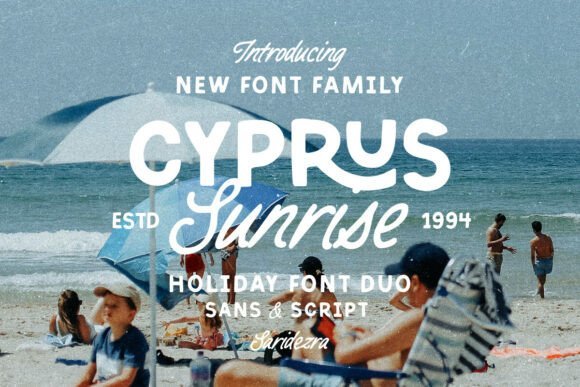
Cyprus Sunrise Duo Font is a masterful combination of organic textures and clean lines, designed to bridge the gap between casual handwritten styles and professional branding. This collection stands out among modern lettering fonts by offering a bold, character-rich sans serif alongside a delicate monoline script. The inclusion of unique ligatures ensures that every word feels custom-made, providing a handcrafted aesthetic that is difficult to achieve with standard digital typefaces.
This duo is exceptionally versatile, making it a go-to choice for designers working on outdoor-themed projects, artisanal logos, or elegant wedding invitations. Whether you are creating a cohesive visual identity for a boutique coffee shop or crafting inspirational social media quotes, the Cyprus Sunrise Duo Font provides the tactile, human touch that defines high-quality lettering fonts today. It pairs beautifully with earthy color palettes and minimalist layouts.
2. Tattoo Lettering Font
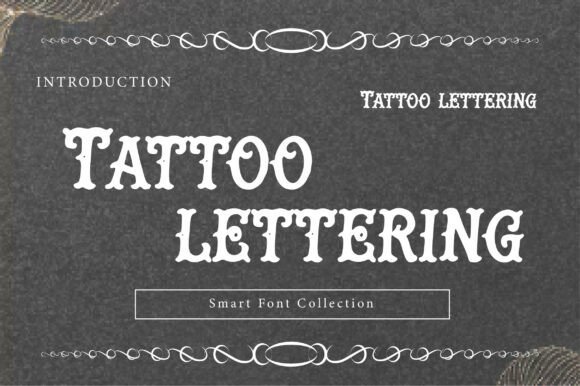
Tattoo Lettering Font captures the raw energy and intricate artistry of West Coast ink culture, transforming the elegance of Chicano-style scripts into a powerful digital tool. As a standout choice for those seeking authentic lettering fonts, this typeface features dramatic, high-contrast flourishes and ornate loops that replicate the fluid movement of a professional artist’s needle. It brings a sense of artisanal craftsmanship and cultural heritage to any design, moving far beyond the limitations of standard decorative scripts.
Ideal for industries that demand a gritty yet luxurious edge, this font is a perfect fit for premium liquor packaging, custom streetwear brands, and professional barbershop identities. By integrating these types of lettering fonts into your workflow, you can create a bold visual statement that resonates with themes of street-level authenticity and high-end craftsmanship. Its rhythmic flow makes it particularly effective for large-scale headers and focal-point branding.
3. Lucky Dream Font
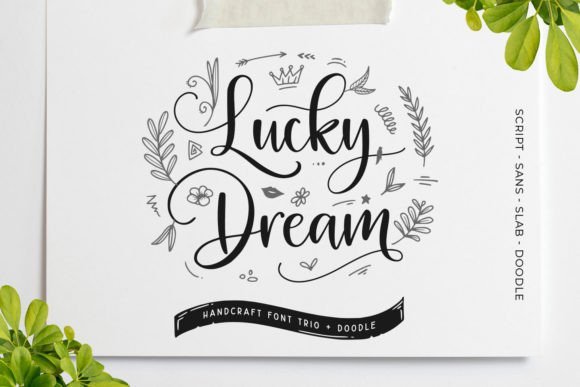
Lucky Dream Font is a comprehensive lettering font trio that brings a whimsical and playful energy to the creative process. By combining three distinct styles with a collection of charming doodles, this set allows designers to build complex, layered compositions without needing to hunt for matching assets. It is a prime example of how modern lettering fonts can simplify the design workflow while maintaining a handcrafted, personal feel that appeals to a wide audience.
This font trio is a dream for DIY enthusiasts and small business owners alike, excelling in projects ranging from custom t-shirts and tote bags to personalized mugs and social media banners. The playful nature of the Lucky Dream set makes it particularly effective for children’s products, celebratory cards, and any project where a sense of joy and approachability is key. For those looking for versatile lettering fonts that work across various craft mediums, this pack is an essential addition to any digital toolkit.
4. Blacknight Font
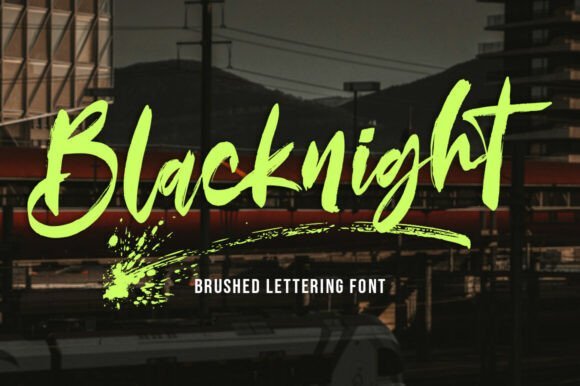
Blacknight Font stands out as a powerful entry in the realm of bold lettering fonts, offering a raw and energetic aesthetic that captures the essence of street art. Its hand-drawn brush strokes are intentionally thick and uneven, providing a sense of motion and confident personality that few digital typefaces can replicate. This font is particularly effective for designers looking to infuse their work with an urban, edgy vibe while maintaining strong legibility across high-impact visuals like music festival posters or streetwear logos.
Beyond its striking visual weight, Blacknight Font is an excellent choice for modern social media campaigns and creative branding projects that require a non-traditional touch. The font’s inherent grit pairs beautifully with paint splatter elements or distressed textures, reinforcing a free-spirited character. Whether you are building a brand identity for an underground brand or creating attention-grabbing content for digital platforms, this typeface delivers a standout presence that demands the viewer’s focus.
5. Monday Vibes Font
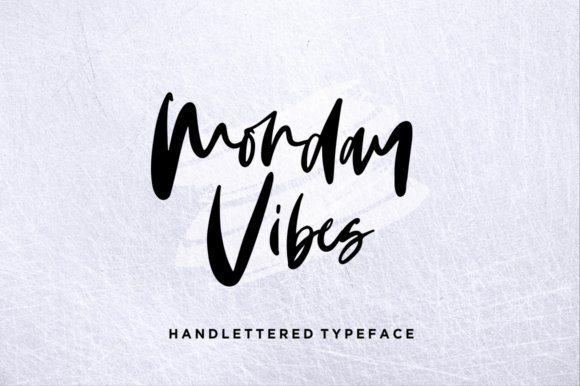
Monday Vibes Font is a sophisticated hand-drawn typeface that perfectly encapsulates the current trend of organic and natural lettering fonts. With its fluid, effortless strokes, it brings a fresh and contemporary feel to any project, making it a favorite for lifestyle branding and personal projects alike. The font’s rhythmic flow mimics real handwriting, offering a human touch that is often lost in more rigid digital designs, which is essential for establishing an emotional connection with an audience.
This versatile font is ideally suited for a wide array of applications, ranging from elegant wedding invitations and stationery to professional photography watermarks and high-end product labels. Its clean yet expressive nature ensures that it remains readable while still providing a distinctive artistic flair. For graphic designers seeking a reliable lettering font that works across both print and digital media, Monday Vibes Font provides the perfect balance of modern style and timeless grace.
6. Doodle Dimples Font
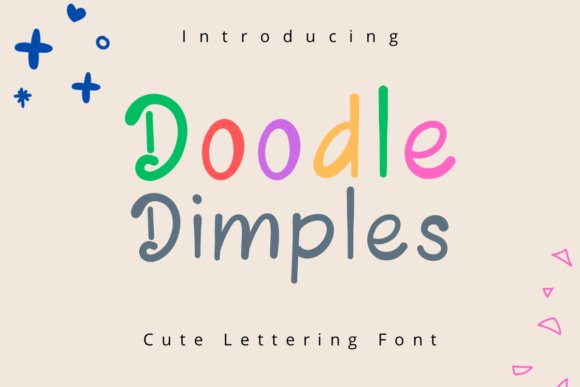
Doodle Dimples Font is a delightful addition to the creative designer’s toolkit, categorized by its endearing and playful nature among contemporary lettering fonts. Its unique design features charming irregularities that evoke a sense of warmth and hand-crafted sincerity. This typeface is more than just a novelty; it is a fully functional design tool that includes a complete set of uppercase and lowercase characters, punctuation, and extensive multilingual support, ensuring it can handle diverse global projects with ease.
Perfect for branding geared toward children, whimsical social media posts, or creative craft projects, Doodle Dimples Font adds a distinct personality that captures attention instantly. Its friendly appearance makes it an excellent choice for book covers, greeting cards, and any graphic design work that aims to be approachable and fun. By incorporating this creative lettering font into your workflow, you can transform standard text into a memorable piece of visual storytelling that feels both personal and professional.
7. Moonlight Font
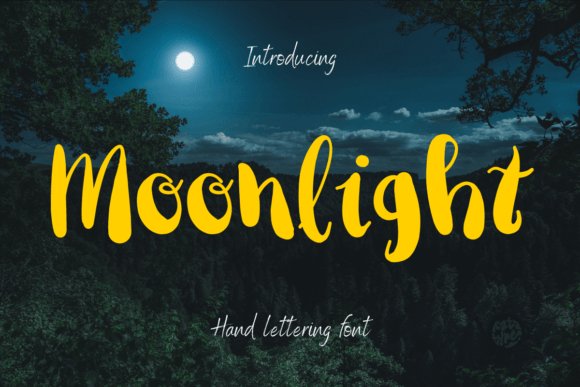
Moonlight is a standout choice among modern lettering fonts, offering a natural, hand-drawn aesthetic that feels both approachable and sophisticated. Its organic curves and rhythmic strokes mimic the fluid flow of real ink on paper, providing a charming visual texture that is difficult to replicate with standard digital typography. This font is an excellent investment for designers looking to infuse their work with a distinct sense of personality and artistic flair that speaks directly to the viewer.
When it comes to practical applications, Moonlight excels in high-touch projects such as bespoke wedding invitations, boutique branding materials, and vibrant social media graphics. Its playful yet creative touch makes it versatile enough for lifestyle blogs or eco-conscious packaging, where a personalized feel is essential for brand identity. By incorporating these types of lettering fonts into your creative toolkit, you can effortlessly bridge the gap between professional digital design and hand-crafted artistry.
8. Ambre Script Font
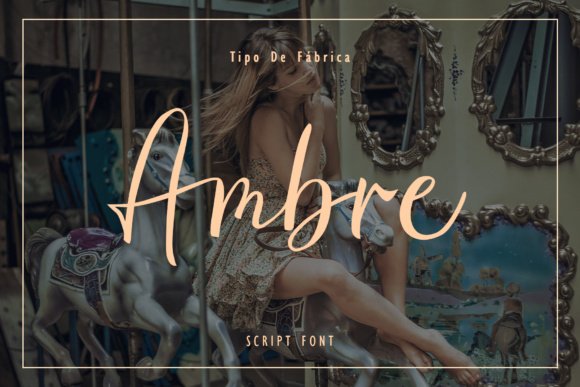
Ambre Script Font brings an elegant and delicate touch to the world of hand lettering fonts, characterized by its cute yet refined letterforms. It strikes a perfect balance between informal whimsy and professional grace, making it a favorite for projects that require a soft, feminine, or high-end aesthetic. The fluid transitions between characters create a seamless and rhythmic reading experience, elevating simple text into a piece of visual art.
This font is particularly effective for digital-first creators, shining in Instagram stories and social media campaigns where immediate visual impact is paramount. It also pairs beautifully with natural product packaging and artisanal branding, lending a sense of authenticity and warmth to the consumer experience. Whether you are designing a logo for a boutique startup or crafting personalized digital content, Ambre Script provides the sophisticated lettering font style needed to capture attention and build lasting brand loyalty.
9. English Font
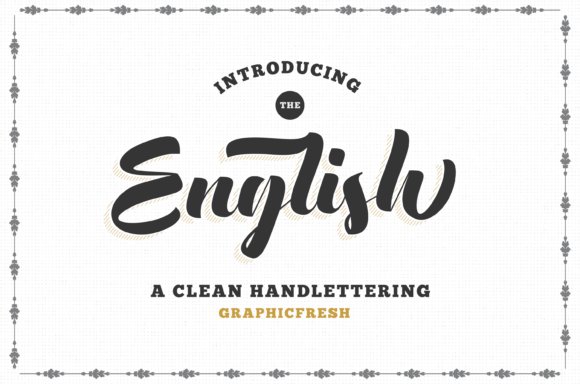
For those seeking a timeless and authoritative look, the English Font is a masterclass in vintage-inspired lettering fonts. It draws deep inspiration from classic calligraphy and traditional signage, offering a bold yet graceful presence that commands attention across various media. Its structured yet flowing lines evoke a sense of heritage and reliability, making it an ideal choice for heritage brands and designers who want to communicate history and prestige through their choice of typography.
The versatility of this lettering font is evident in its wide range of applications, spanning from sophisticated magazine layouts and luxury business cards to large-scale wall art and editorial headers. Its clear legibility ensures it performs exceptionally well in both high-resolution print and modern digital formats, while its unique vintage character helps it stand out against more generic contemporary styles. Incorporating the English Font into your design repertoire allows for the creation of memorable and authoritative visual identities that stand the test of time.
10. Murghen Script Font
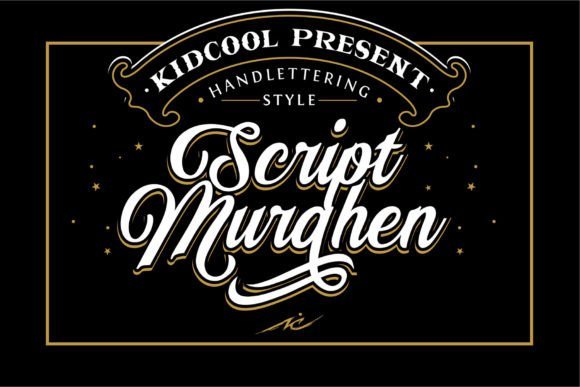
Murghen Script Font is an exquisitely crafted hand lettering font designed to infuse a sense of bespoke artistry into any creative endeavor. Its fluid strokes and organic flow provide a sophisticated nuance that sets it apart from more clinical typefaces, making it an essential tool for designers seeking a high-end, custom look. This font excels in providing that sought-after hand-drawn aesthetic, ensuring that each character feels deliberate and uniquely formed to elevate your composition.
Whether you are designing elegant wedding invitations, professional logotypes, or striking book covers, Murghen Script offers the versatility required for modern branding. It serves as a prime example of how contemporary lettering fonts can bridge the gap between traditional calligraphy and digital efficiency. Its natural rhythm and varying weights make it particularly suitable for projects where a personal, human touch is paramount to the brand identity.
11. Reagan Font
Reagan Font is a charming and approachable hand-lettering font that captures a casual, friendly vibe perfect for a wide range of lifestyle applications. From creating bespoke pantry labels and custom mugs to designing vibrant social media graphics, its playful yet legible structure makes it a favorite for DIY enthusiasts and professional graphic designers alike. As part of the growing trend of versatile lettering fonts, Reagan provides a warm, handwritten quality that resonates with audiences looking for authenticity.
Beyond personal crafts, Reagan Font is robust enough for commercial branding, business cards, and promotional posters. Its consistent stroke weight ensures clarity even at smaller sizes, which is crucial for items like stickers and planner prints. By integrating this typeface into your design toolkit, you gain a reliable asset that balances the whimsy of hand-drawn art with the functional requirements of modern typography and digital layout design.
12. Haiva Font
Haiva Font is a stunning modern hand-lettering font that masterfully blends natural elegance with an organic, contemporary feel. Characterized by smooth, flowing strokes and subtle, intentional imperfections, it captures the raw beauty of authentic script while maintaining the high level of readability required for professional design. This font is particularly effective for creative projects that aim to project a warm and personal atmosphere without sacrificing stylistic sophistication.
Technically versatile, Haiva Font is provided in multiple formats including TTF, OTF, and web-ready WOFF2, making it an ideal choice for digital lettering fonts used across websites and mobile apps. Its balanced letterforms create a harmonious visual rhythm that works beautifully for both punchy headlines and more detailed text compositions. From boutique packaging to luxury event invitations, Haiva adds a fresh, nature-inspired aesthetic that aligns perfectly with current trends in handcrafted artistry.
13. Lettering Font
The Lettering Font is an exquisite example of modern script design, blending a playful energy with sophisticated craftsmanship. Its slender, handwritten characters flow together with seamless connections, creating a natural rhythm that mimics high-end calligraphy. The defining characteristic of this typeface is its dramatic, heart-tipped swashes that extend elegantly from the letters, making it a premier choice for those searching for romantic and whimsical lettering fonts. Because it is PUA-encoded, designers can effortlessly access all decorative glyphs and alternates, ensuring a custom look for every project.
Ideal for personal branding and event-focused designs, this handmade font shines in contexts like wedding invitations, social media graphics, and customized apparel. Whether you are building a boutique brand identity or crafting a heartfelt greeting card, its decorative flair adds a layer of warmth and approachability. The combination of smooth curves and expressive flourishes ensures that your typography remains the focal point, capturing the viewer’s attention with its unique, feminine charm and artistic personality.
14. Alistair Font
Alistair Font is a striking display typeface that masterfully captures the ethereal essence of rising smoke. Each all-caps character is meticulously constructed from wispy, swirling tendrils that mimic the fluid motion of dark vapor. This specialized entry among lettering fonts offers a level of realism and atmosphere that is hard to find elsewhere, making it an essential tool for designers working on mystery, fantasy, or cinematic themes. Its mysterious aesthetic allows words to drift across the canvas with a hauntingly beautiful presence, transforming standard text into a visual experience.
This atmospheric font is perfectly suited for high-impact visual media, including movie posters, book covers for mystery novels, and edgy streetwear collections. Its abstract yet legible forms provide a sense of motion and intrigue, making it an excellent choice for gothic branding or modern experimental art. By incorporating Alistair into your toolkit, you gain the ability to create designs that feel both elusive and unforgettable, ensuring your message carries a distinct, smoke-like texture that lingers in the viewer’s mind.
15. Scracth Font
Scracth Font stands at the intersection of aggressive heavy metal aesthetics and the raw, unpolished vibe of neo-brutalism. As a dark lettering font, it features sharp, jagged lines and a distressed texture that radiates power and intensity. It is designed for those who need their typography to command respect and cut through the noise, making it one of the most distinctive lettering fonts for subculture-driven designs. Its bold architecture and rough edges provide a sense of grit that is synonymous with underground music and high-concept streetwear.
When it comes to application, Scracth is the go-to choice for concert posters, band merchandise, and lifestyle branding that aims for a rebellious edge. It works exceptionally well in large display sizes where the intricate details of its scratched texture can be fully appreciated. Beyond just being a blackletter variant, it serves as a statement piece for any project that requires a sense of strength and uncompromising character, ensuring your branding stands out in a crowded market with its fierce and unconventional personality.
16. No Prob Llama Font
No Prob Llama is a delightful and approachable entry into the world of contemporary lettering fonts. Its hand-drawn aesthetic exudes a sense of warmth and accessibility, making it an excellent choice for designers looking to move away from rigid geometry toward something more human. The font features a variety of character combinations that allow for a custom, bespoke feel without the effort of manual calligraphy, ensuring your text looks unique and thoughtfully composed.
This playful typeface is particularly effective for children’s branding, party invitations, and lighthearted social media content. Because of its organic curves and whimsical weight, it pairs beautifully with clean sans-serif accents. Whether you are crafting a logo for a boutique shop or designing physical merchandise like tote bags and stickers, this font adds a touch of personality that resonates with an audience looking for fun and authentic designs.
17. Deen Haag Font
Deen Haag represents a sophisticated evolution in modern lettering fonts, blending the fluidity of traditional script with a sharp, contemporary edge. It manages to be both elegant and striking, providing a visual weight that commands attention on the page. The flow between characters is meticulously crafted, ensuring that even complex words maintain a high level of legibility while still looking like a hand-inked masterpiece that adds premium value to any composition.
For designers working on luxury branding, high-end wedding invitations, or editorial layouts, Deen Haag is a versatile powerhouse. Its striking presence makes it ideal for hero banners and title sequences where a touch of refined class is required. Use it to elevate your graphic design projects by combining it with minimalist photography or muted color palettes to let the intricate and professional letterforms truly take center stage.
18. Super School Font
Super School is a masterclass in creative hand lettering fonts, designed to inject a heavy dose of whimsy and charm into any creative project. It strikes a rare balance between being highly readable and uniquely decorative, making it a reliable choice for projects that require a dash of schoolhouse nostalgia or youthful energy. The font’s inviting character is perfect for grabbing attention in crowded digital spaces, such as vibrant social media graphics, educational materials, or engaging video thumbnails.
Beyond digital applications, Super School excels in the realm of physical product design and branding. It is exceptionally well-suited for printing on mugs, t-shirts, and posters where the visual texture of the lettering adds a sophisticated edge. This typeface seamlessly integrates with various design aesthetics, from retro to modern, allowing it to underpin everything from heartwarming birthday greeting cards to professional logos for startups looking for a memorable identity.
19. Christmas Jumper 2023 Font
The Christmas Jumper 2026 Font is a standout choice among decorative lettering fonts, specifically designed to capture the cozy, nostalgic essence of traditional holiday knitwear. This unique typeface meticulously mimics the intricate textures and geometric patterns of a hand-knitted garment, making it the ideal companion for seasonal projects ranging from custom holiday party invitations to bespoke apparel. Whether you are aiming to create the quintessential ‘ugly sweater’ design or simply want to infuse your digital graphics with a touch of wintry warmth, this font provides a tactile feel that resonates deeply with the festive spirit.
Beyond its novelty appeal, this hand-knitted lettering font offers a playful and quirky aesthetic that helps your Christmas merchandise stand out in a crowded marketplace. It is exceptionally well-suited for personalized t-shirts, festive product packaging, and social media campaigns that require a handcrafted, artisanal touch. By integrating these types of specialized lettering fonts into your creative workflow, you can easily achieve a charming look that suggests time and care were spent on every stitch of the design, ensuring your brand feels both approachable and seasonally relevant.
20. Digestion Font
Digestion Font is a masterfully crafted brush hand lettering font that strikes a perfect balance between a delicate silhouette and a relaxed, approachable vibe. Its fluid strokes and organic rhythm make it an excellent selection for designers seeking lettering fonts that bridge the gap between high-end formal elegance and casual, everyday creativity. The natural ink-like flow of each character ensures that your text feels alive and authentic rather than digitally rigid, making it a versatile tool for an array of professional branding and personal projects.
This particular lettering font excels in environments where personality and legibility must coexist, such as on artisanal product packaging, lifestyle magazine layouts, or inspirational social media tiles. Because of its balanced weight and rhythmic curves, it pairs beautifully with clean sans-serif typefaces, allowing the brush-style lettering to serve as a sophisticated focal point. Whether you are developing a brand identity for a boutique cafe or designing a series of greeting cards, the Digestion Font provides the artistic flair necessary to make your message feel genuinely personal and intentional.
21. Ciellda Font
Ciellda Font is an elegant signature script that perfectly exemplifies the sophisticated beauty found in modern lettering fonts. Featuring a light touch and graceful transitions, this font is specifically tailored for high-end projects that demand a layer of class and a sense of refined femininity. It serves as a premier choice for wedding stationery, fashion branding, and luxury editorial designs where a signature-style typeface can convey exclusivity. The delicate loops and stylish ligatures provide a bespoke quality that mirrors professional calligraphy with modern accessibility.
In addition to print media and branding, this lettering font is an invaluable asset for photographers and digital content creators who wish to add a stylized, personal watermark to their visual work. Its sleek and airy design ensures that it enhances the imagery without becoming a distraction, establishing a professional and recognizable brand presence. For creators who prioritize aesthetic elegance, the Ciellda Font stands out among contemporary lettering fonts as a reliable tool for producing polished, high-impact designs that carry a distinct personal touch.
22. Malaga Font
Malaga Font is an exceptional example of modern lettering fonts designed to bring a sense of joy and approachability to any project. Its hand-lettered strokes are clean yet carry a distinct human touch, making it incredibly versatile for both print and digital media. The playful rhythm of the characters ensures that your headlines pop, while the underlying legibility keeps the message clear and professional.
Ideal for branding, social media graphics, and quirky invitation sets, Malaga includes a variety of alternative characters that allow for custom typographic layouts. Whether you are designing a logo for a boutique bakery or creating a series of inspirational quote cards, this font provides the flexibility needed to craft a unique visual identity. Its organic feel pairs beautifully with vibrant color palettes and minimalist illustrations.
23. Cute Lettering Font
When searching for high-quality lettering fonts that exude warmth and personality, Cute Lettering Font stands out as a top contender. This lovely handwritten typeface offers a timeless appeal that bridges the gap between casual scribbles and elegant calligraphy. Because it is PUA encoded, designers can effortlessly access a treasure trove of extra glyphs and decorative swashes, allowing for intricate customization without needing complex software.
This font is a stellar choice for eye-catching logos, custom branding projects, and personalized stationery. Its soft, rounded forms make it particularly effective for children’s products, wedding invitations, or lifestyle blogs that require a welcoming and intimate aesthetic. By incorporating this font into your creative toolkit, you can elevate simple text into a piece of art that resonates emotionally with your audience.
24. The Big Font
The Big Font is a powerhouse in the world of brush-style lettering fonts, offering a raw and energetic aesthetic that commands immediate attention. Its unique hand-painted texture provides an authentic feel that is perfect for bold signage, high-impact flyers, and expressive brochures. The thick, confident strokes give the typeface a sense of movement and urgency, making it a favorite for modern branding and promotional materials.
Designed with versatility in mind, The Big Font is an excellent match for industries ranging from cosmetics and event planning to independent music and specialty coffee shops. It excels in contexts where a handmade, artisanal look is desired, such as on product labels or artist portfolios. Use it to create dynamic business cards or striking headlines that require a bold, artistic signature to stand out in a crowded market.
25. Cracked Egg Font
The Cracked Egg Font is a masterclass in illustrative design, pushing the boundaries of traditional lettering fonts to create something truly memorable. Each character is meticulously crafted to resemble a freshly cracked egg, complete with fluid, oozing whites and vibrant yolks that add a pop of color to any layout. This hand-drawn display typeface captures a sense of morning freshness and culinary creativity, making it a standout choice for designers looking to break away from sterile typography and embrace a more artisan, textural aesthetic that speaks directly to the audience.
Ideal for niche branding projects, these lettering fonts excel when used in brunch menus, farm-to-table identity systems, and playful social media content. The jagged eggshell fragments at the base of each glyph provide a solid foundation while maintaining a whimsical, organic feel that resonates with foodies and craft enthusiasts alike. Whether you are designing a logo for a boutique bakery or creating custom kitchen apparel, this typeface offers the perfect blend of humor and professional illustration to ensure your message feels both approachable and uniquely stylized.
With this collection of 25 lettering fonts, you are well-equipped to handle any design challenge that comes your way in 2026. These typefaces offer a great balance of artistic flair and readability, making them perfect for a variety of print and digital applications. We hope you enjoy experimenting with these lettering fonts and seeing how they can bring a fresh perspective to your creative projects.